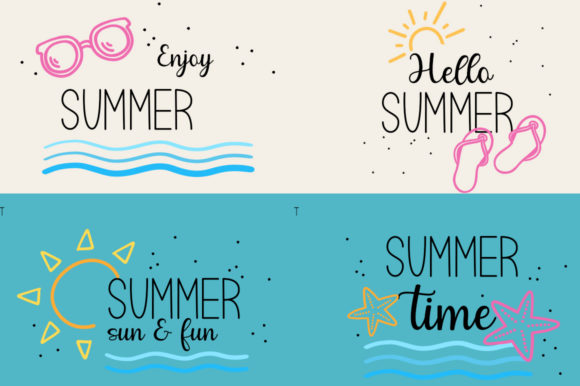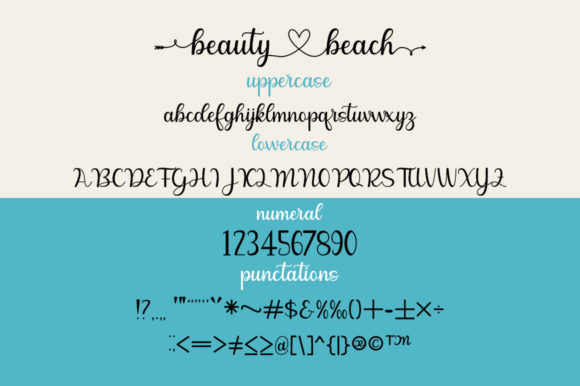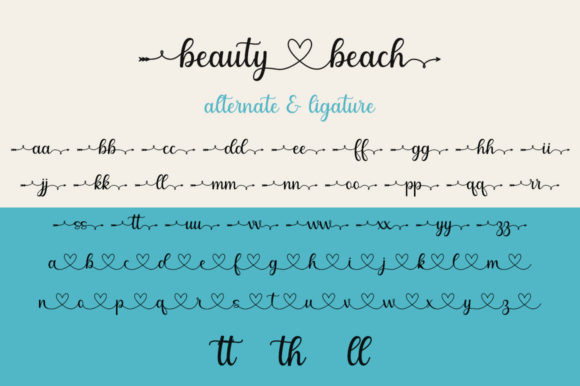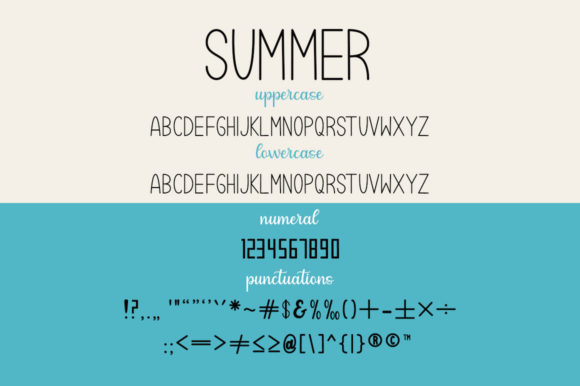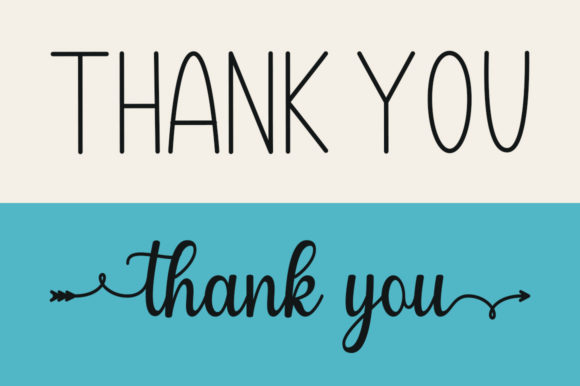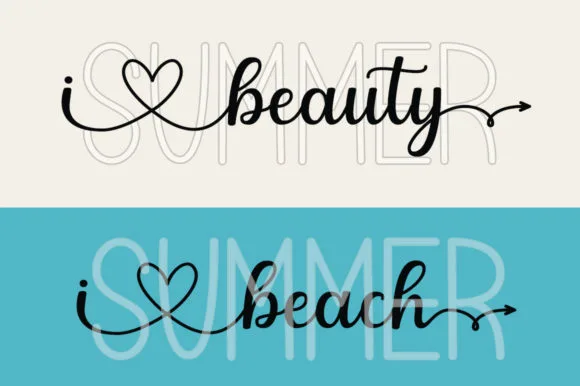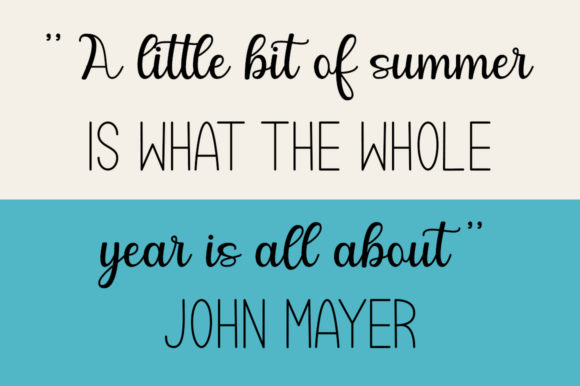
Summer Beauty Beach Font
About Summer Beauty Beach Font
Summer Beauty Beach is a fun and relaxed duo font (sans serif and script). Incredibly versatile, this font fits a wide pool of designs, elevating them to the highest levels. This font is PUA encoded which means you can access all of the glyphs and swashes with ease!